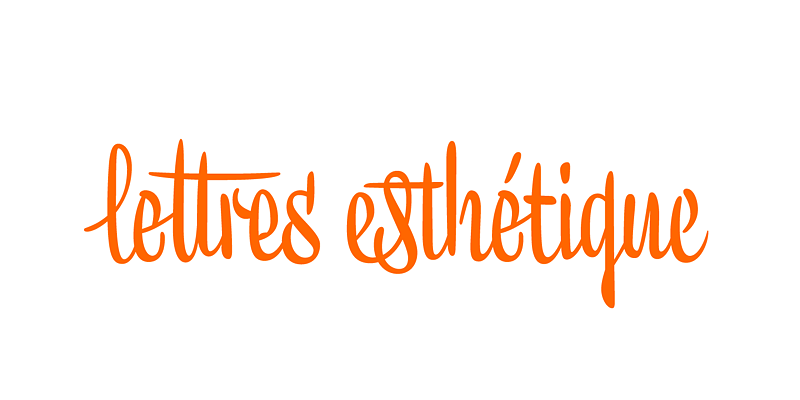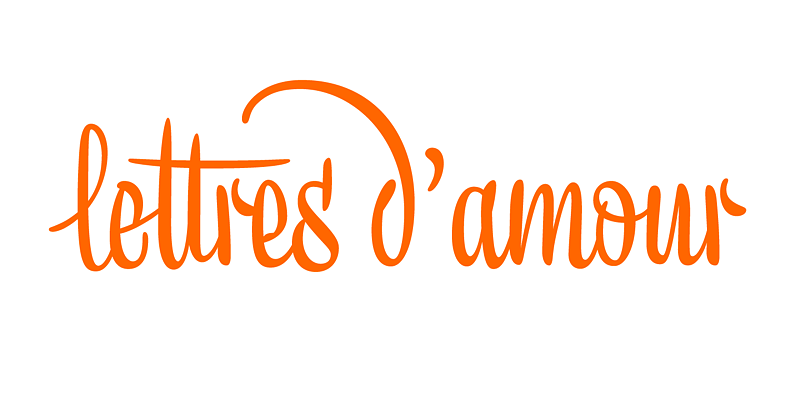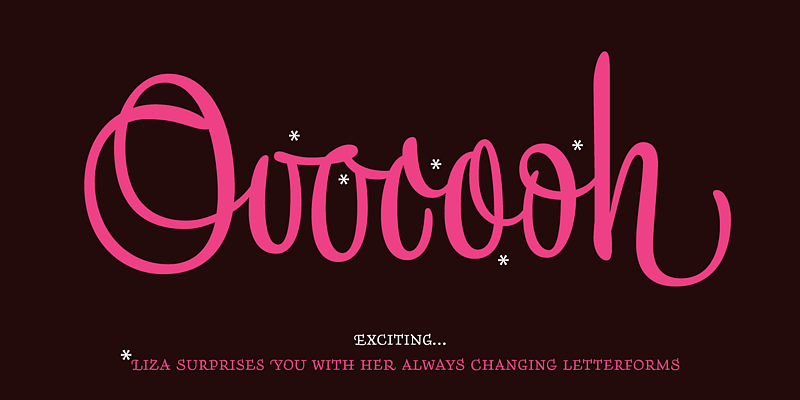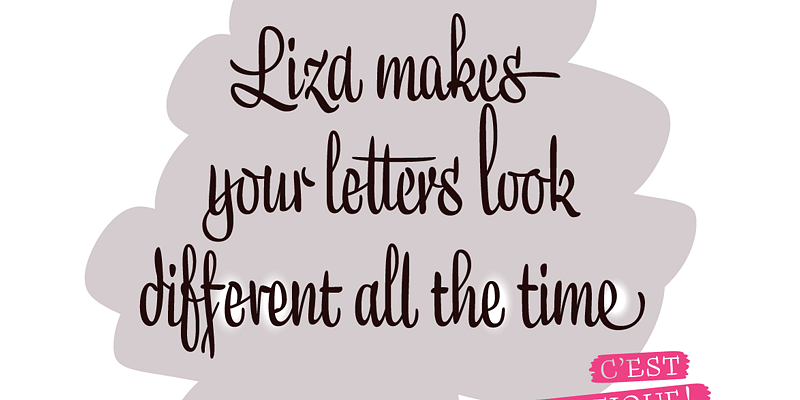
Liza might be the most intelligent font in the world. Its sophisticated code combined with many alternate glyphs for specific situations, guarantee a completely natural look. Script & all caps styles!
Underware
Underware is a rock-hard font foundry with a whole lot of feeling for real type. Stunning retail fonts, exclusive branding, custom type for demanding clients, own freaky design tools, you name it. Sweating & rocking in Den Haag, Helsinki and Amsterdam. Founded by Akiem Helmling, Sami Kortemäki and Bas Jacobs in 1999. You can ask them anything.